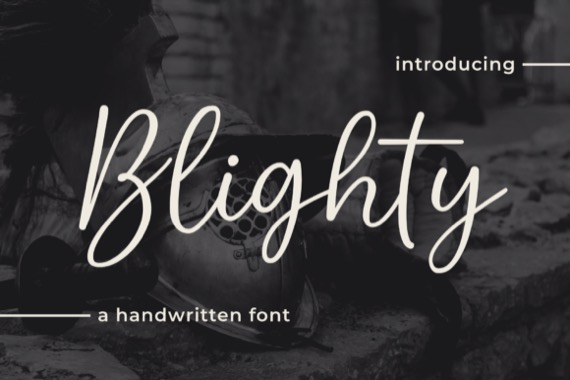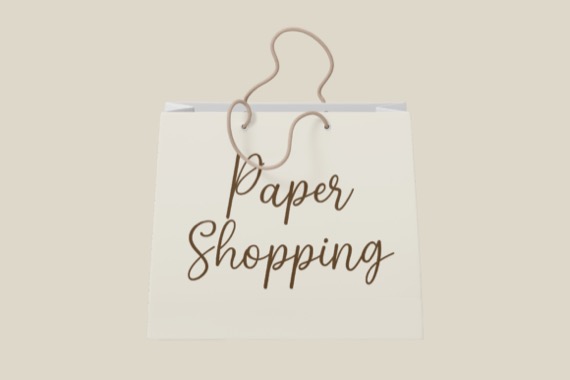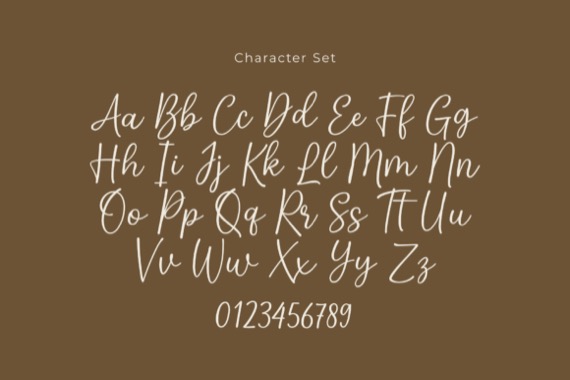
Blighty Font by Nhfonts Studio is a simple and sweet handwritten typeface. This font is suitable for logos, T-shirts, merchandise, quotes, social media posts, advertising, and a lot more!
Blighty Handwritten Script Font
Designer, Publisher: Nhfonts